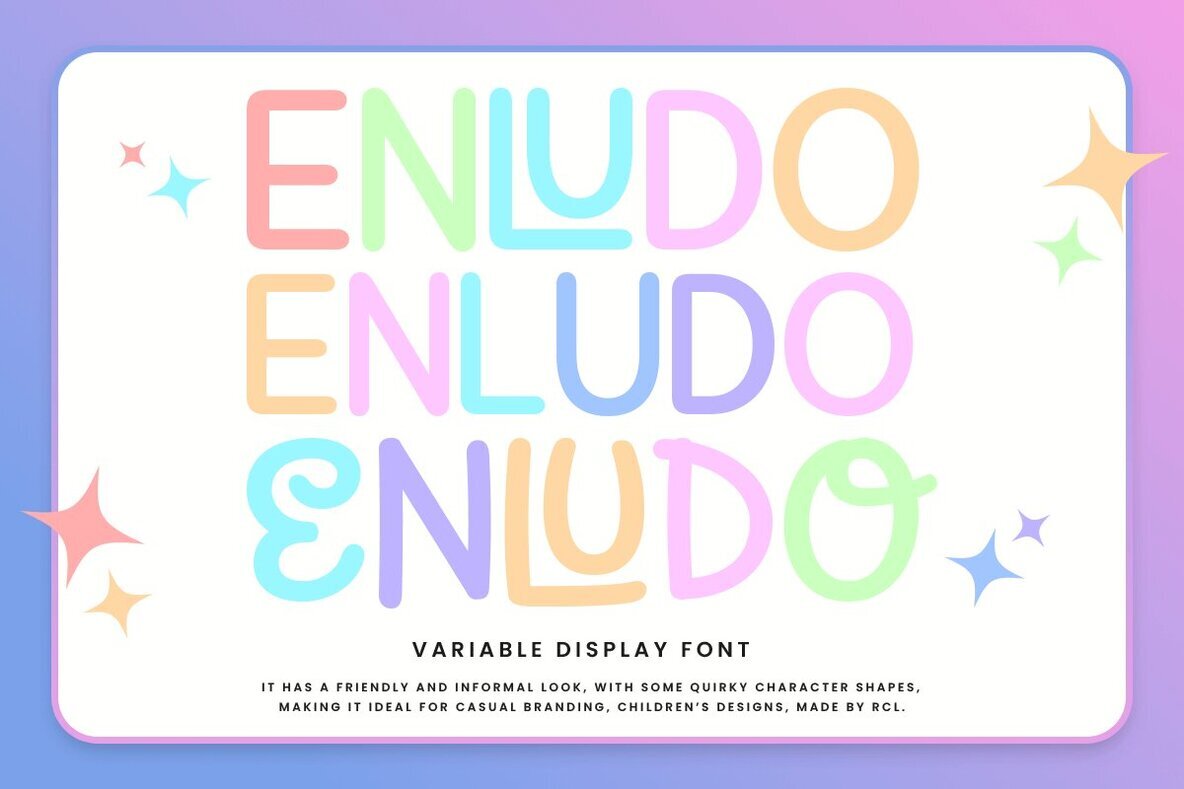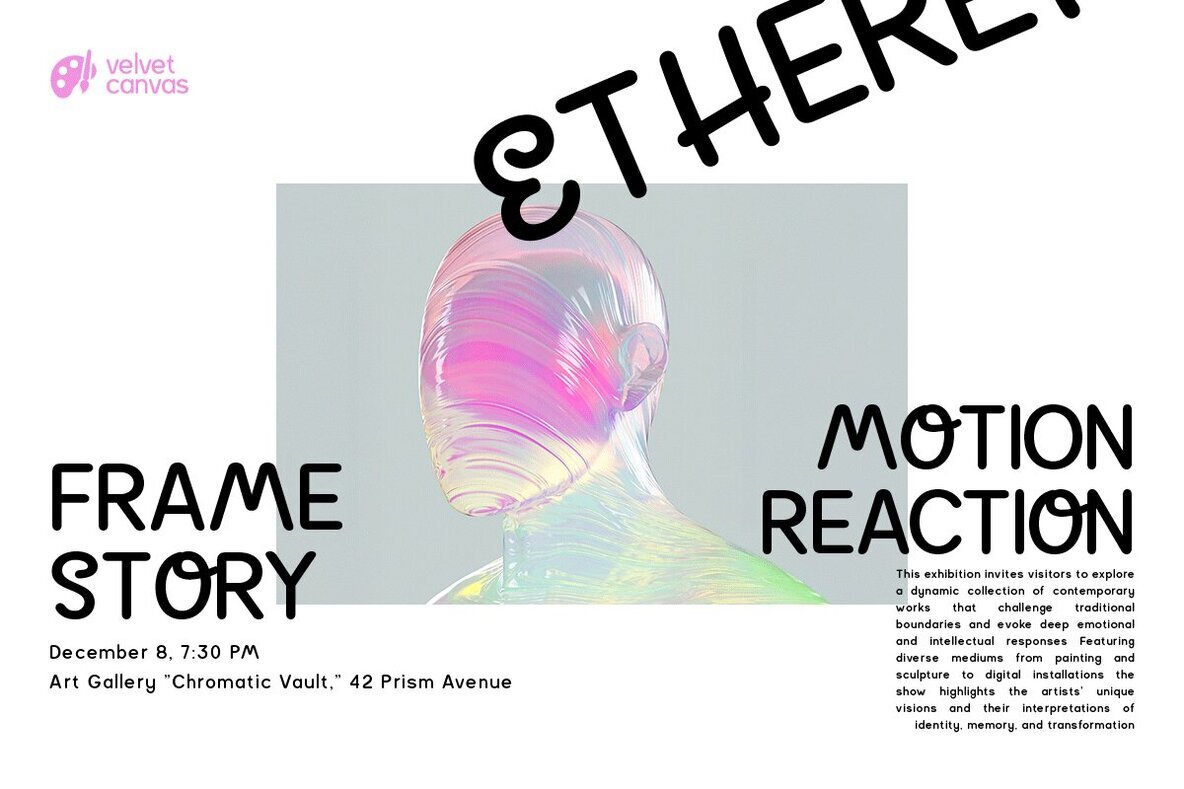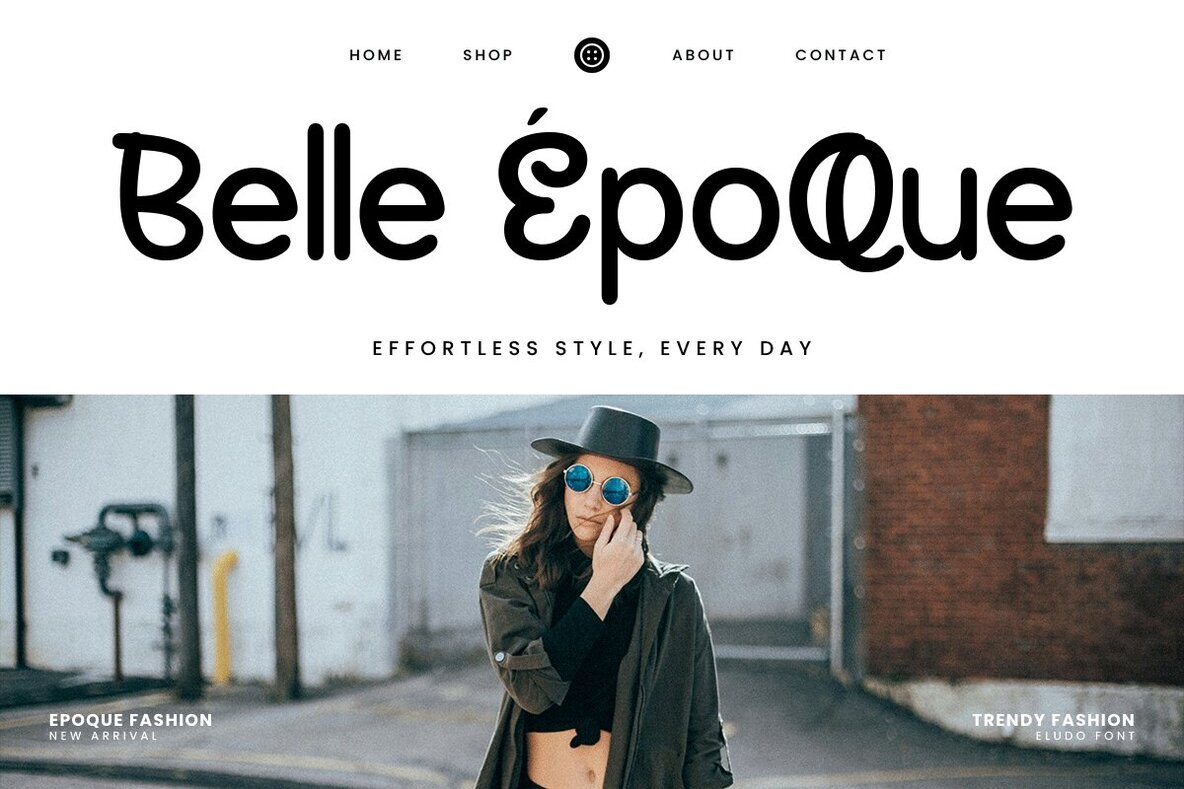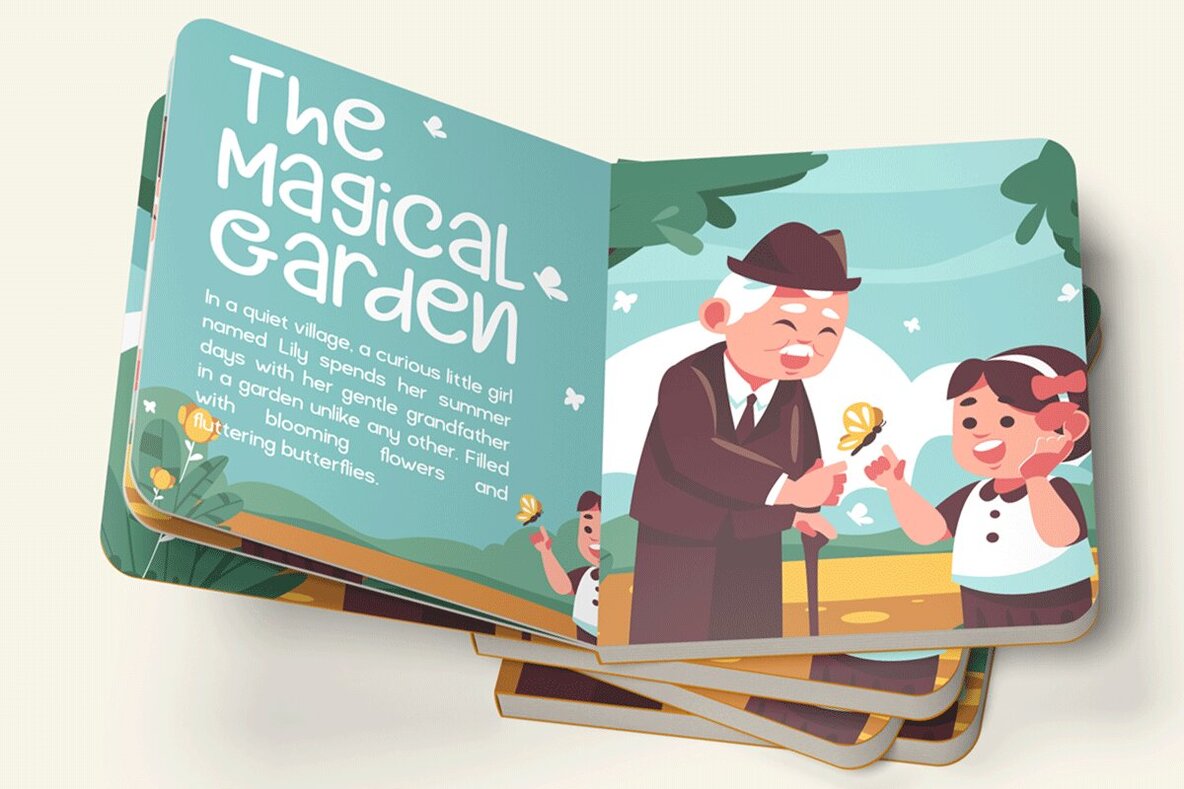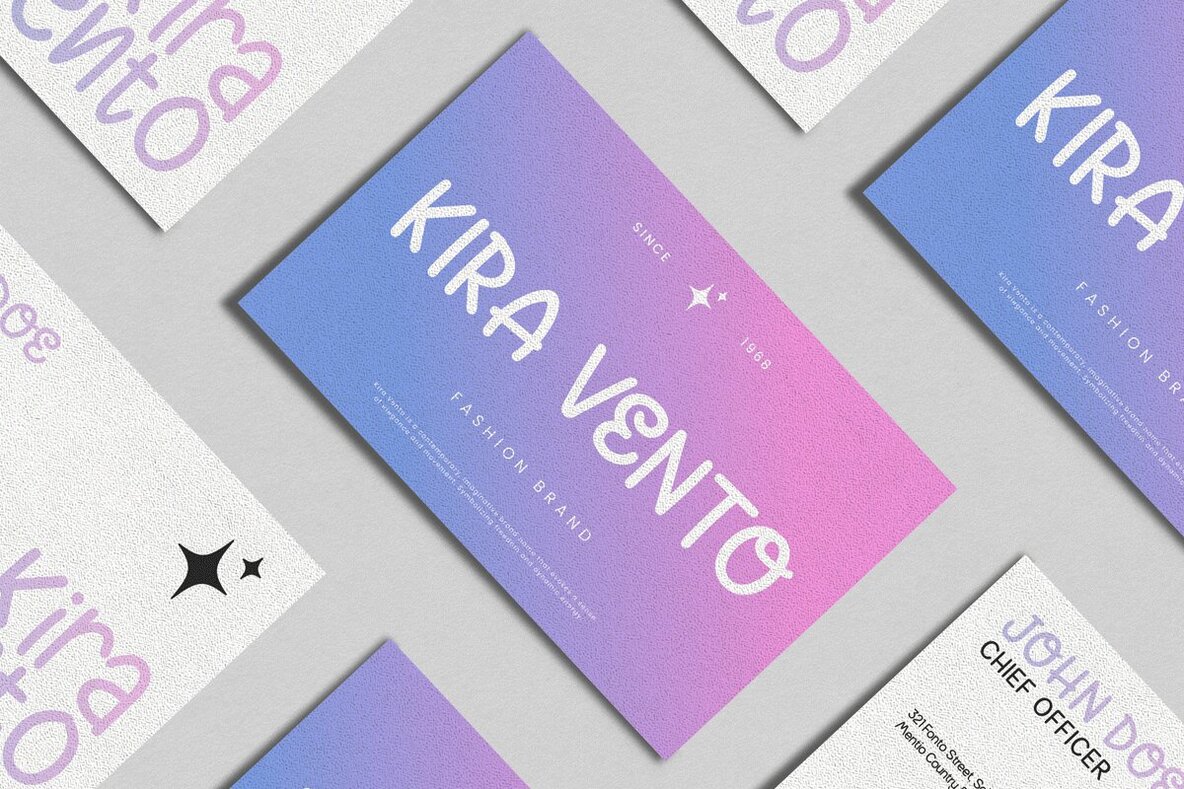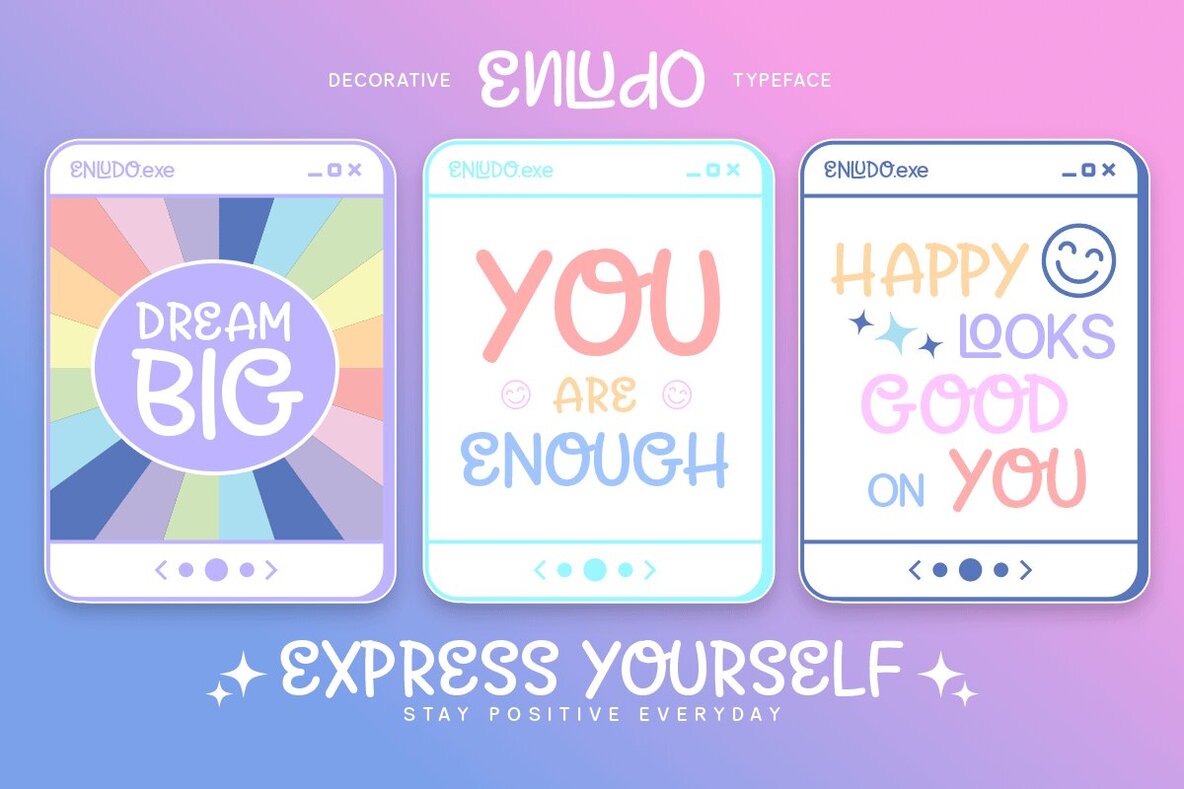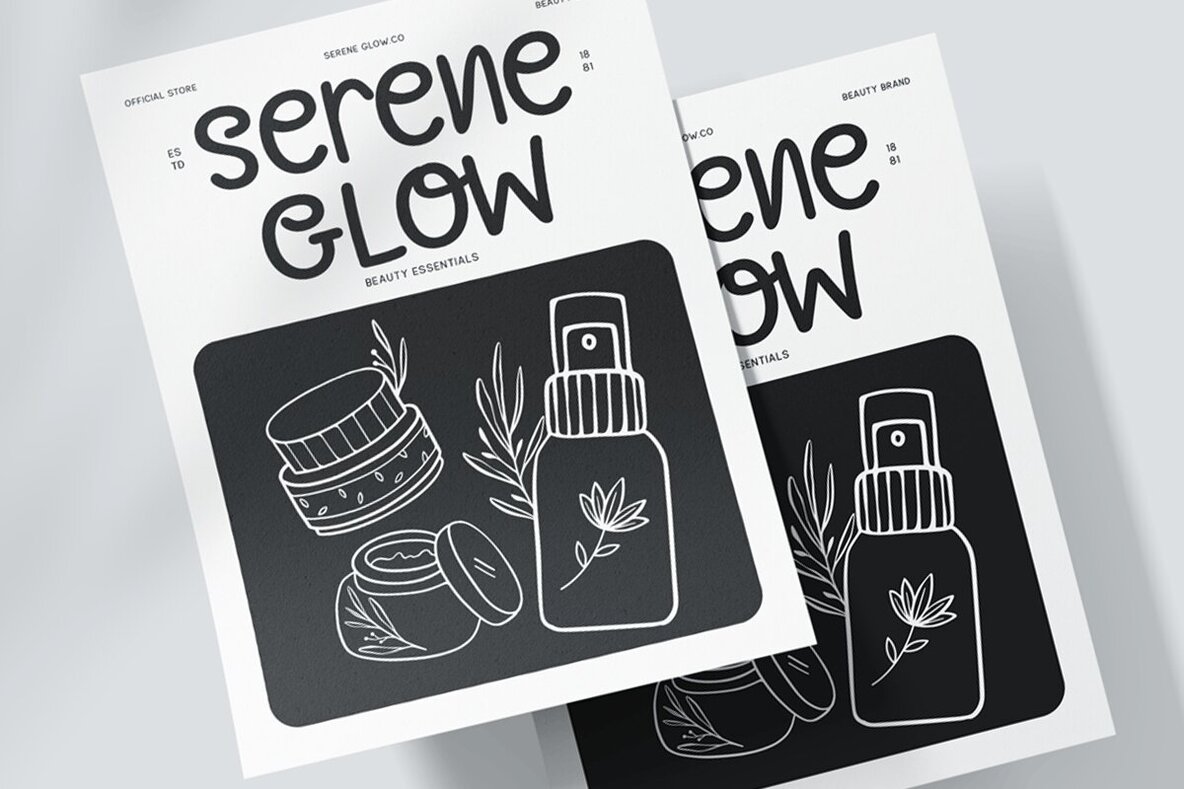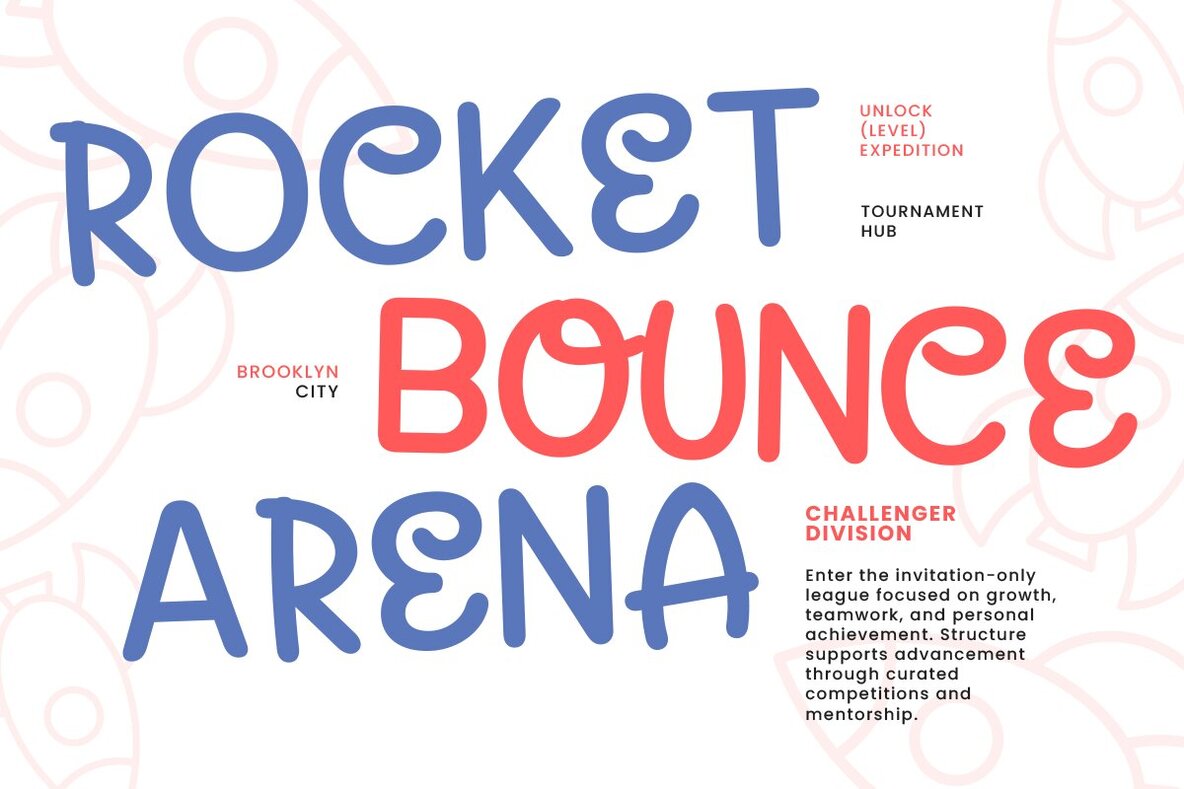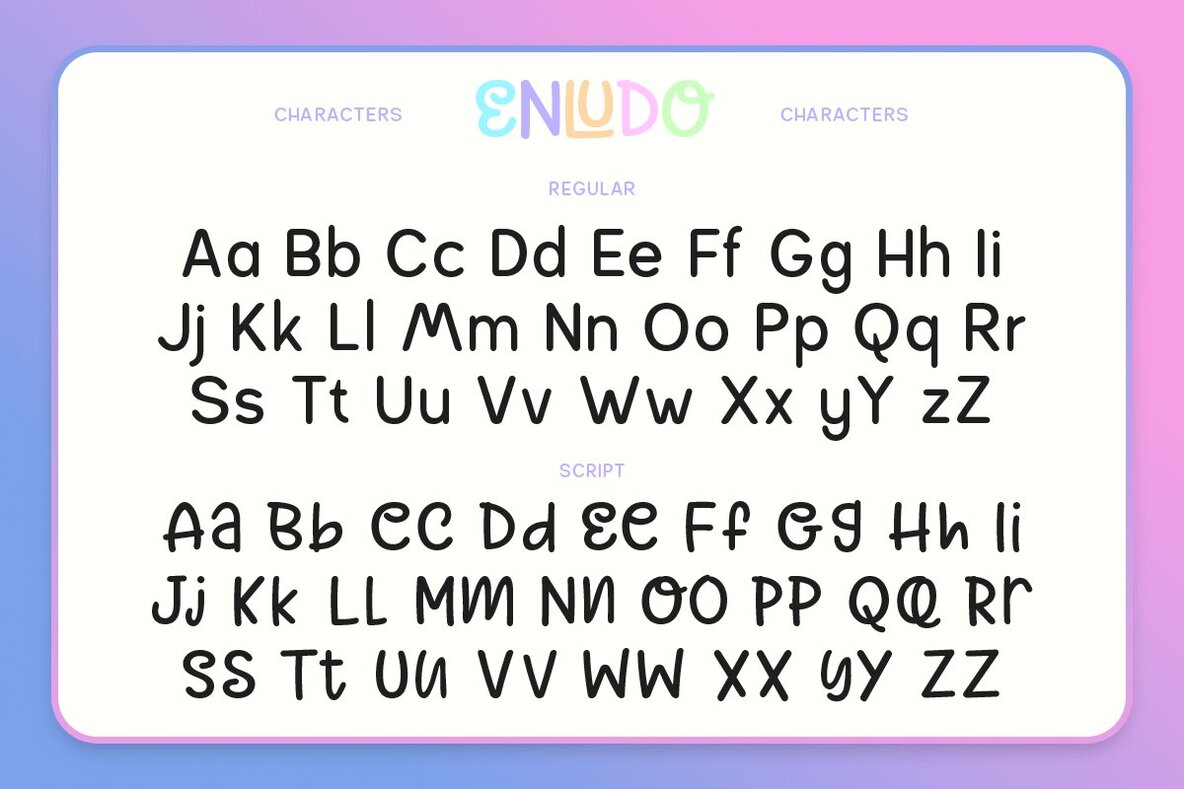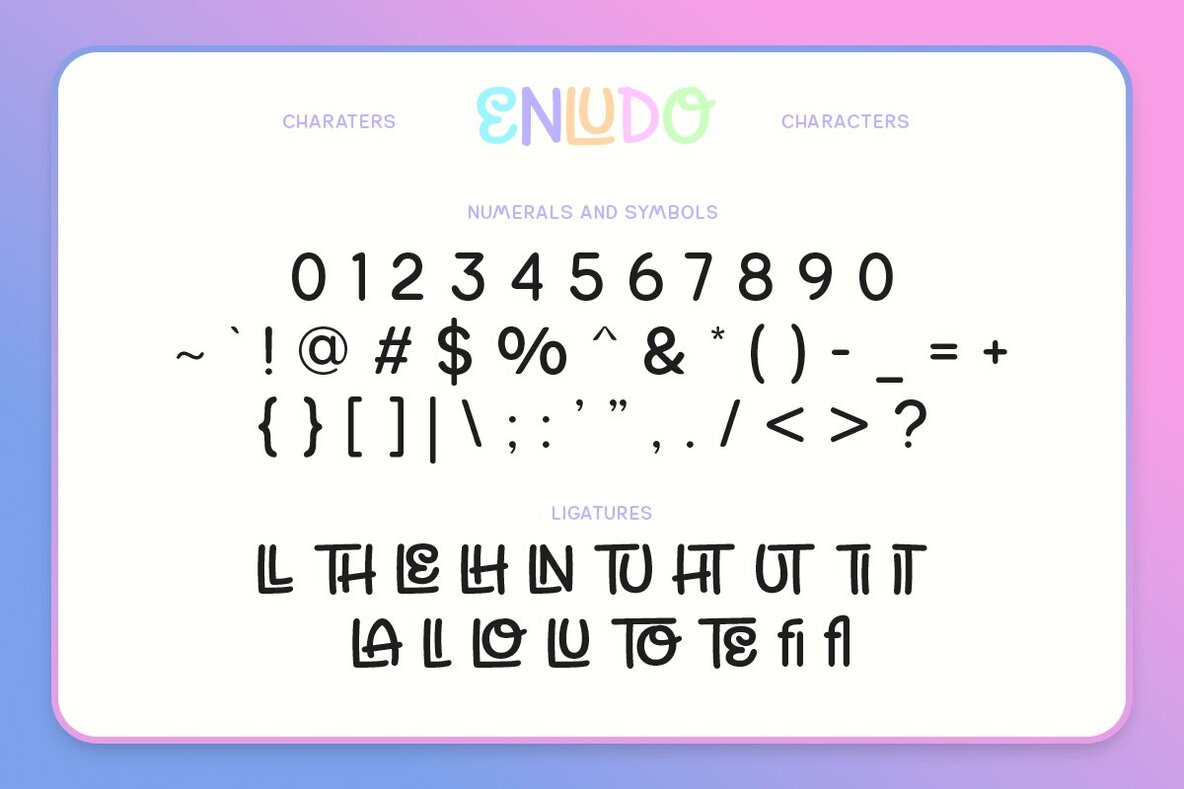
Enludo Font
Enludo pairs a lively sans-serif with a charming handwritten script, offering a vibrant solution for design projects that call for a friendly, approachable mood. Its cheerful curves, variable thickness, and soft organic flow make Enludo well-suited for brands seeking a modern, upbeat identity. The sans version features rounded corners and clean geometric shapes, bringing clarity and playfulness, while the script adds warmth and personality to every word.Enludo Font Duo: Playful Sans and Script
Enludo is carefully crafted with optimized kerning and consistent stroke contrast, ensuring reliable performance across both print and digital media. With extensive multilingual support, this font duo adapts effortlessly to diverse projects and audiences. Add it to lifestyle packaging, kid-centric branding, social media graphics, or logos to create a welcoming and joyful impression.Features